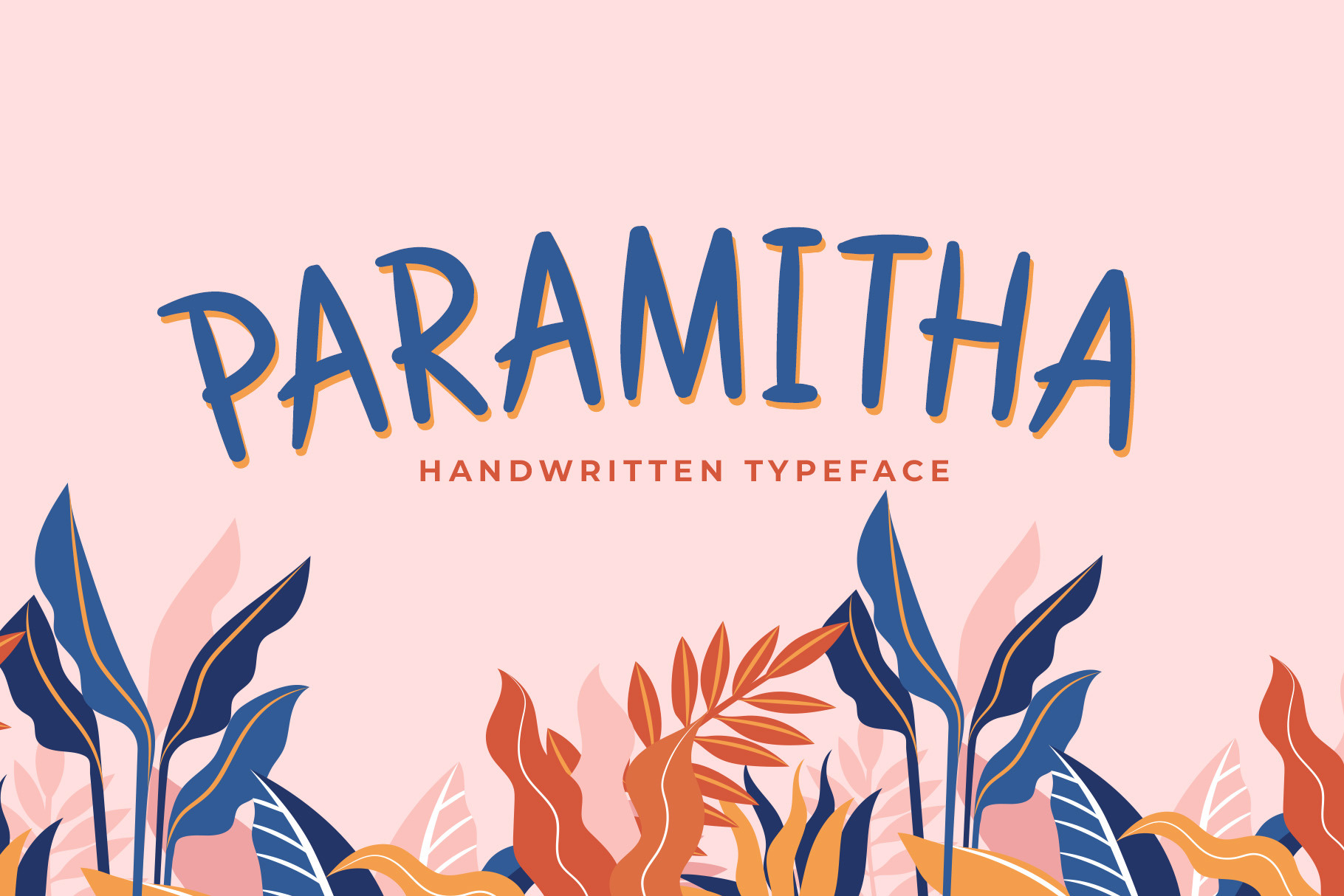
Paramitha a Handwritten Typeface
I proudly introduce to you Paramitha a handwritten typeface font, with feminim, bold, and cute look font. Can make it easier to convey the message in your design. Use for awesome display, Logo, labeling, clothing, movie screen, poster, movie title, gigs, album covers, logos, and much more.